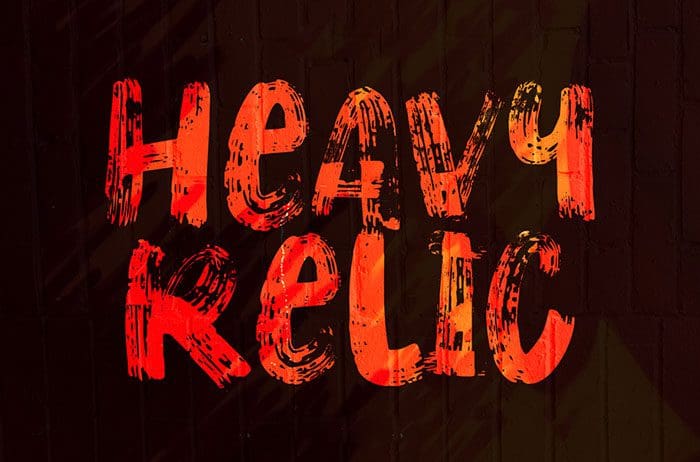
Heavy Relic Brush Font
Heavy Relic Brush Font. It was inspired by the spirit of the most time tested, road-worn, and battle-hardened workhorse vintage Fender guitars in history. This font work greats for posters, movie titles, headlines, and apparel. This font is available only for personal use. Created this font by Epiclinez. More free Brush Fonts. Thanks!